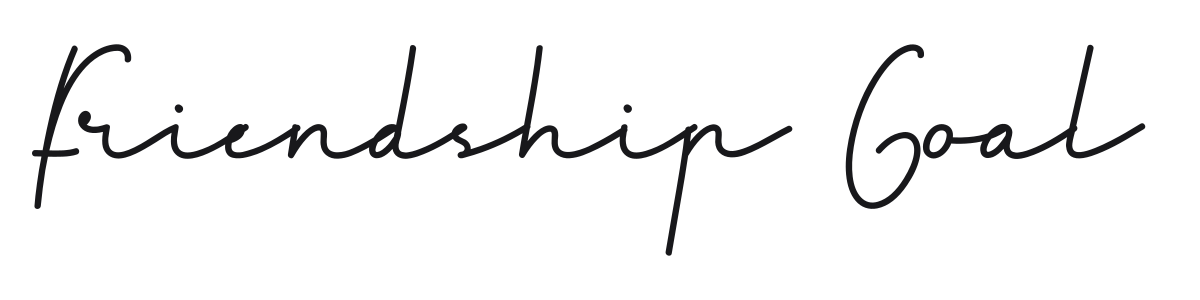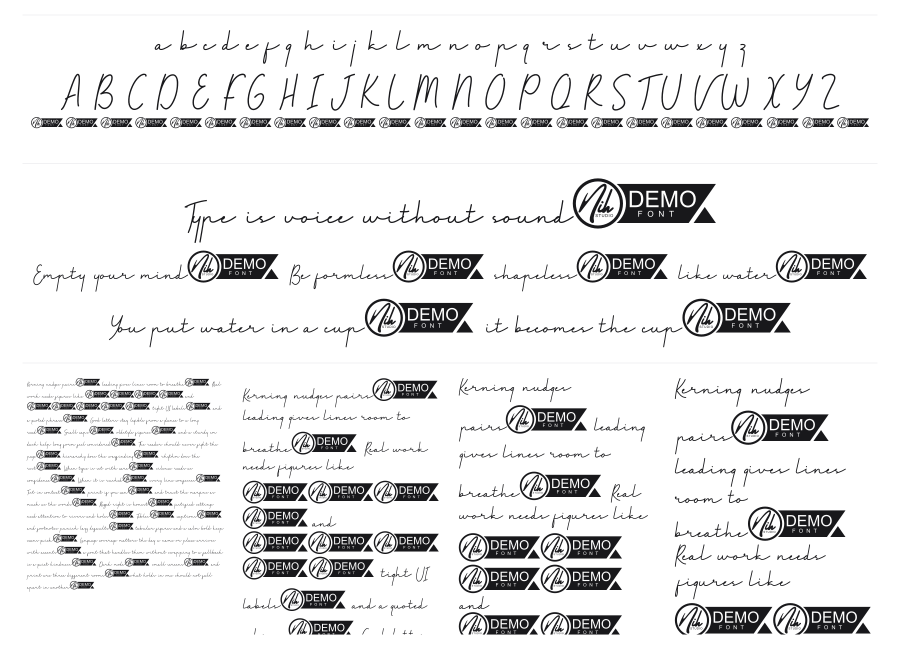
Friendship Goal
Friendship Goal is a thin, flowing cursive script designed with the easy energy of a personal signature. Its continuous strokes and loose, open loops read as spontaneous and warm rather than formal or structured. Strong for branding, packaging, and lifestyle projects where a human, handwritten touch is the point.